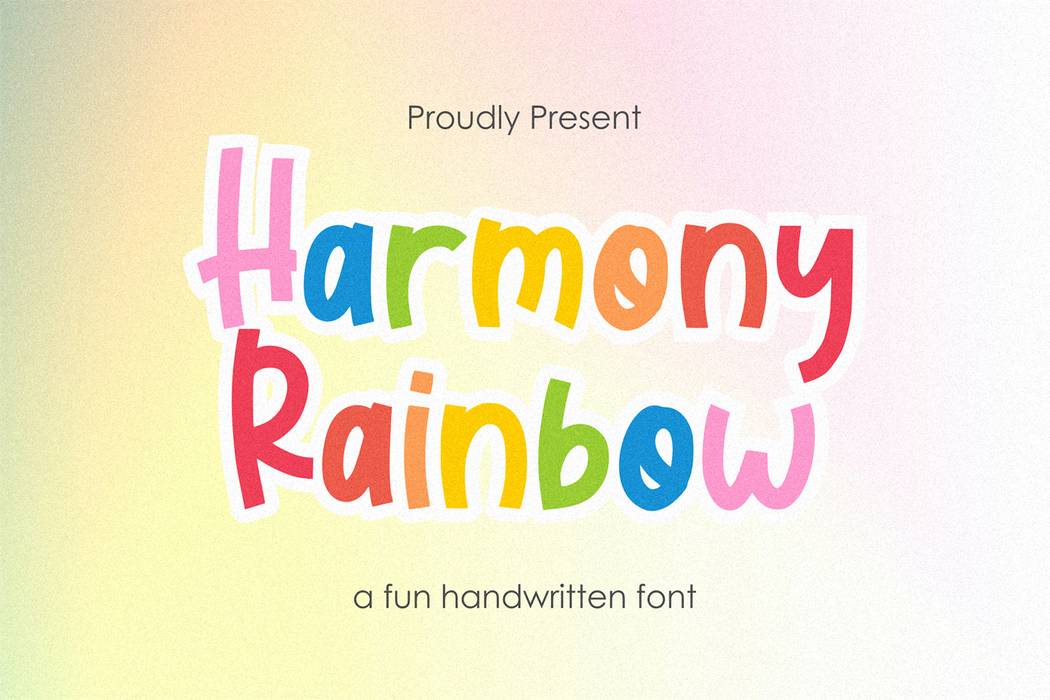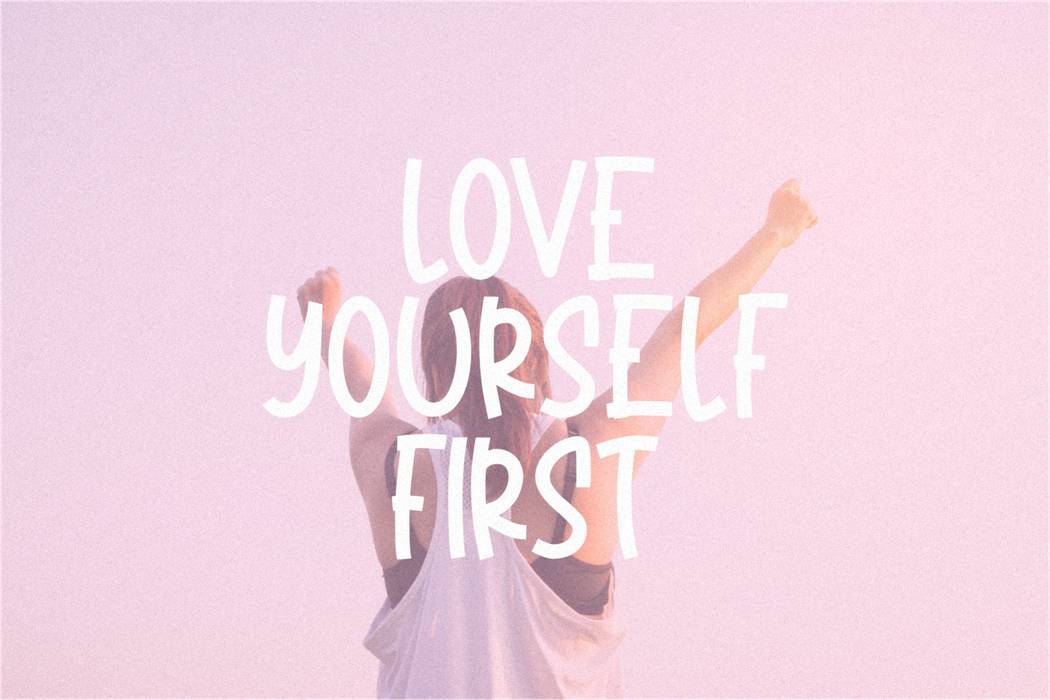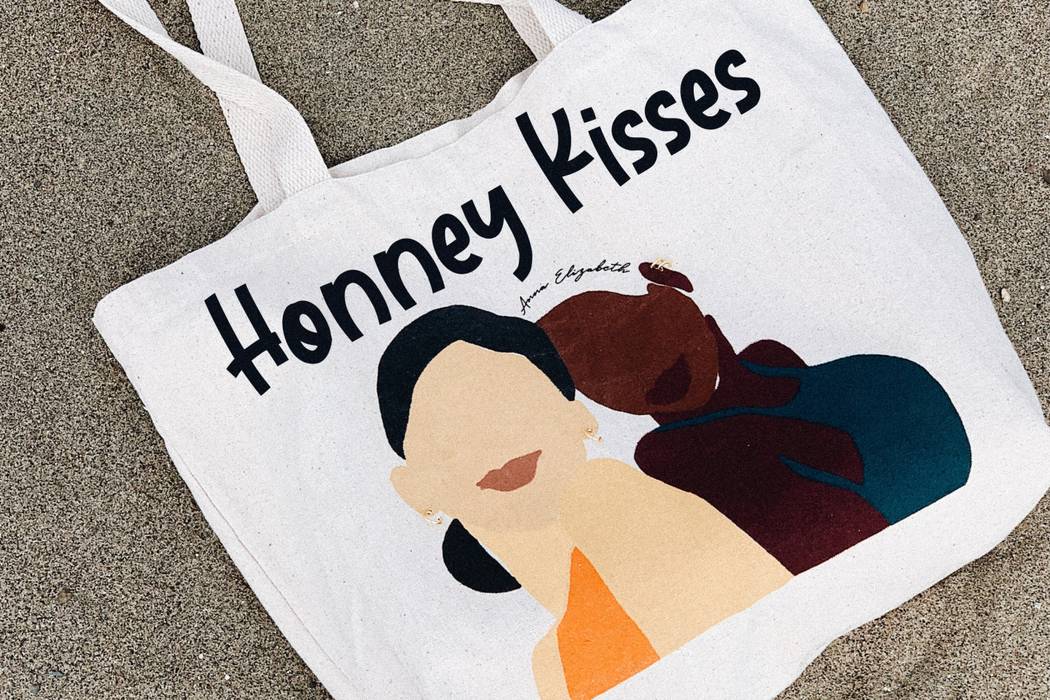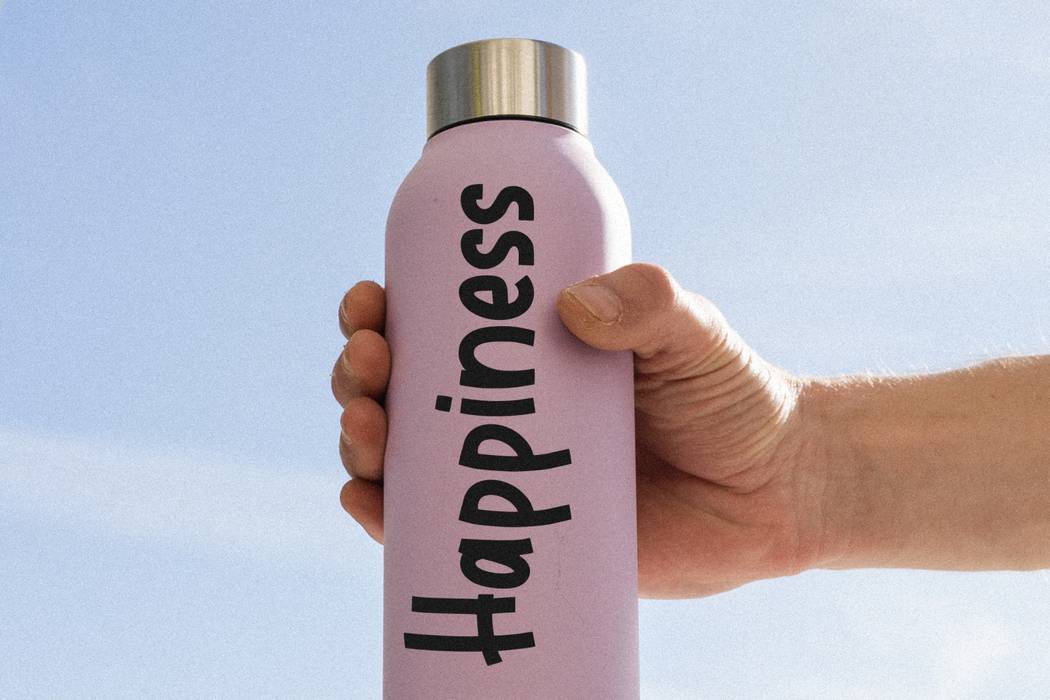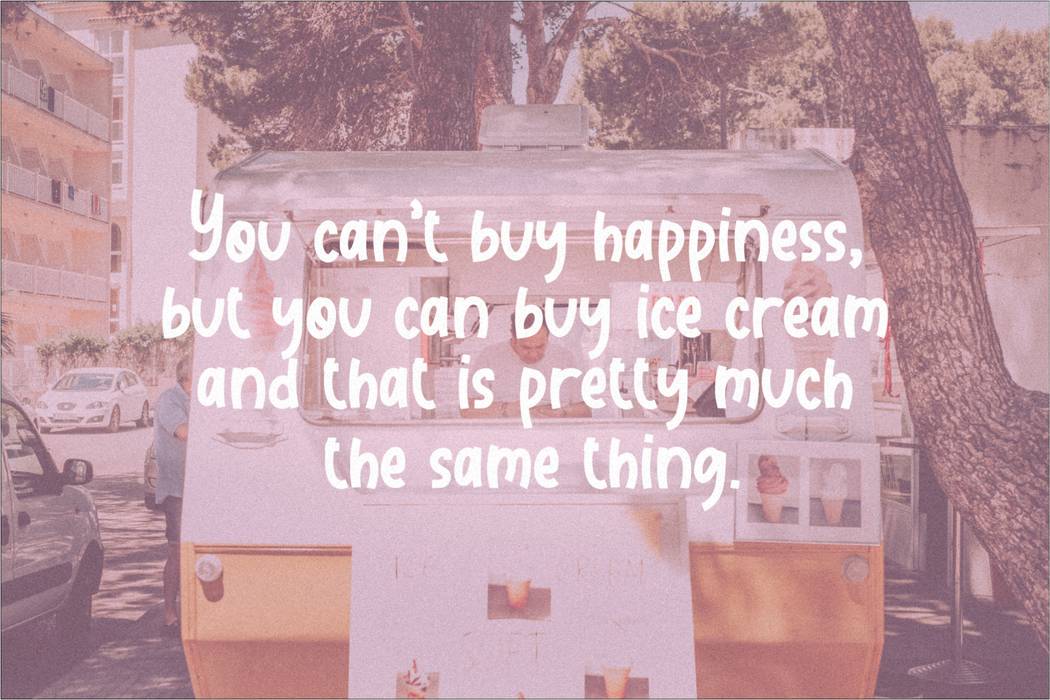
Harmony Rainbow is a playful sans serif font with quirky, hand-drawn letterforms that bring a charming and informal feel. Its moderately tall x-height and slightly irregular shapes give it a friendly, approachable personality perfect for creative, casual, or youthful designs. This font works well in children’s books, fun posters, and logos seeking a warm and inviting vibe.
Harmony Rainbow Font
About Harmony Rainbow Font